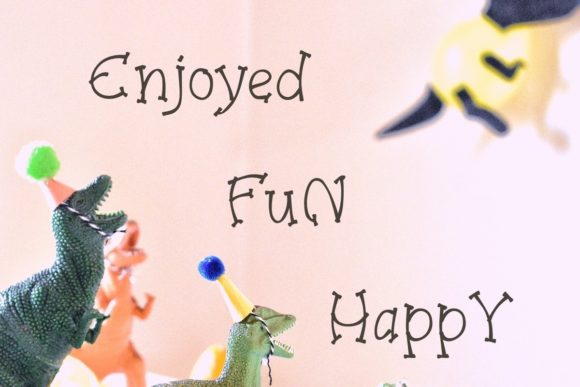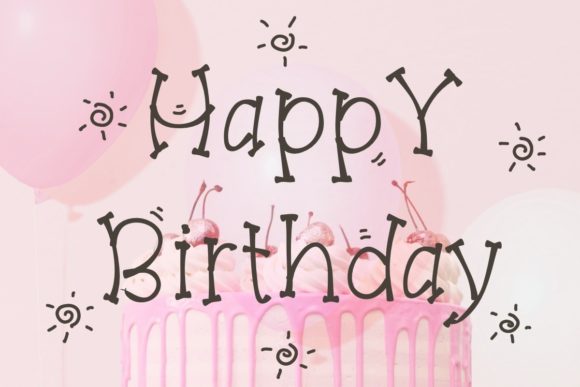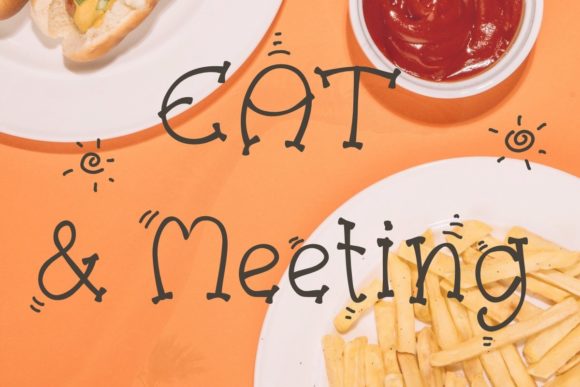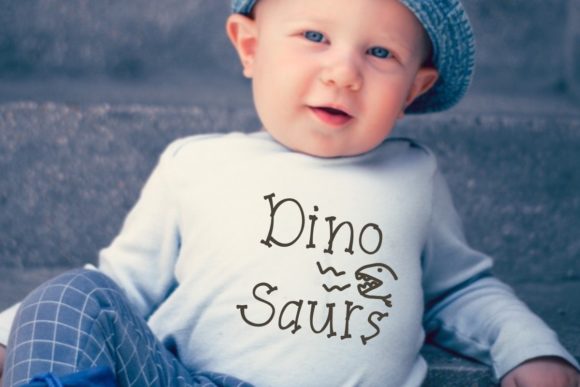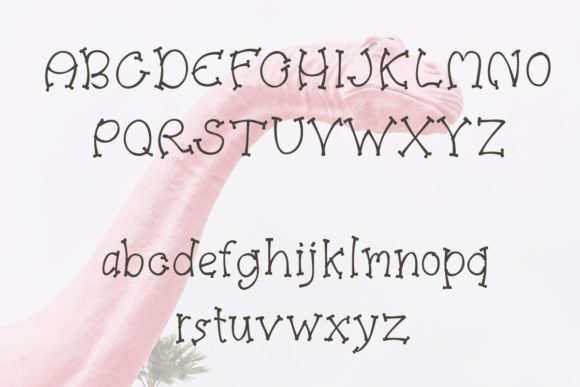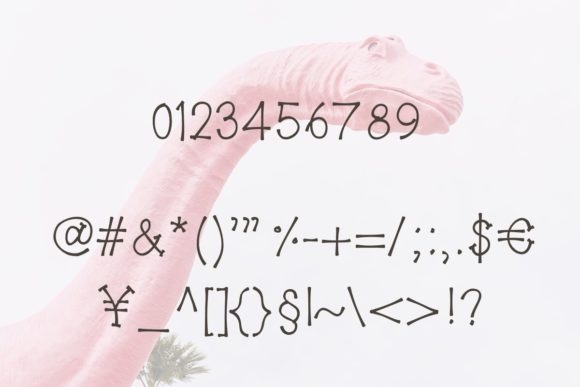
Unleash Your Creativity with Dinosaurs Font: A Playful and Authentic Serif Font
Are you a designer or crafter looking for a font that can add a touch of playfulness and authenticity to your creative projects? Look no further than Dinosaurs Font! This lovely serif font is designed to make your designs stand out from the crowd, and in this article, we’ll explore what makes it so special.
The Inspiration Behind Dinosaurs Font
The Dinosaurs Font is inspired by the prehistoric creatures that once ruled the earth. The font’s design is reminiscent of the classic illustrations of dinosaurs from the early 20th century, with a modern twist. The result is a font that is both nostalgic and fresh, perfect for designers and crafters who want to add a touch of whimsy to their work.
Key Features of Dinosaurs Font
So, what makes Dinosaurs Font so special? Here are some of its key features:
- Playful and Authentic: Dinosaurs Font is designed to be playful and authentic, with a unique blend of classic and modern elements.
- Serif Font: This font features serifs, which give it a classic and sophisticated look that’s perfect for a wide range of design projects.
- Highly Readable: Despite its playful nature, Dinosaurs Font is highly readable, even at small sizes.
- Versatile: This font can be used for a wide range of design projects, from logos and branding to invitations and crafts.
Best Uses for Dinosaurs Font
Dinosaurs Font is a versatile font that can be used for a wide range of design projects. Here are some of the best uses for this font:
- Logos and Branding: Dinosaurs Font is perfect for logos and branding projects that need to stand out from the crowd.
- Invitations and Stationery: This font is great for invitations, stationery, and other paper crafts that need a touch of playfulness.
- Crafts and DIY Projects: Dinosaurs Font is perfect for crafters and DIY enthusiasts who want to add a personal touch to their projects.
- Web Design: This font can also be used for web design projects, such as headings and titles.
Tips for Using Dinosaurs Font
Here are some tips for using Dinosaurs Font in your design projects:
- Use it as a Headline Font: Dinosaurs Font is perfect for headlines and titles, where its playfulness and authenticity can really shine.
- Pair it with a Sans-Serif Font: For body text, pair Dinosaurs Font with a sans-serif font to create a nice contrast.
- Experiment with Colors: Dinosaurs Font looks great in a wide range of colors, so don’t be afraid to experiment and find the perfect hue for your project.
In conclusion, Dinosaurs Font is a lovely serif font that embodies playfulness and authenticity. Its unique blend of classic and modern elements makes it perfect for designers and crafters who want to add a touch of whimsy to their work. With its highly readable design and versatile nature, Dinosaurs Font is sure to become a favorite in your design toolkit.